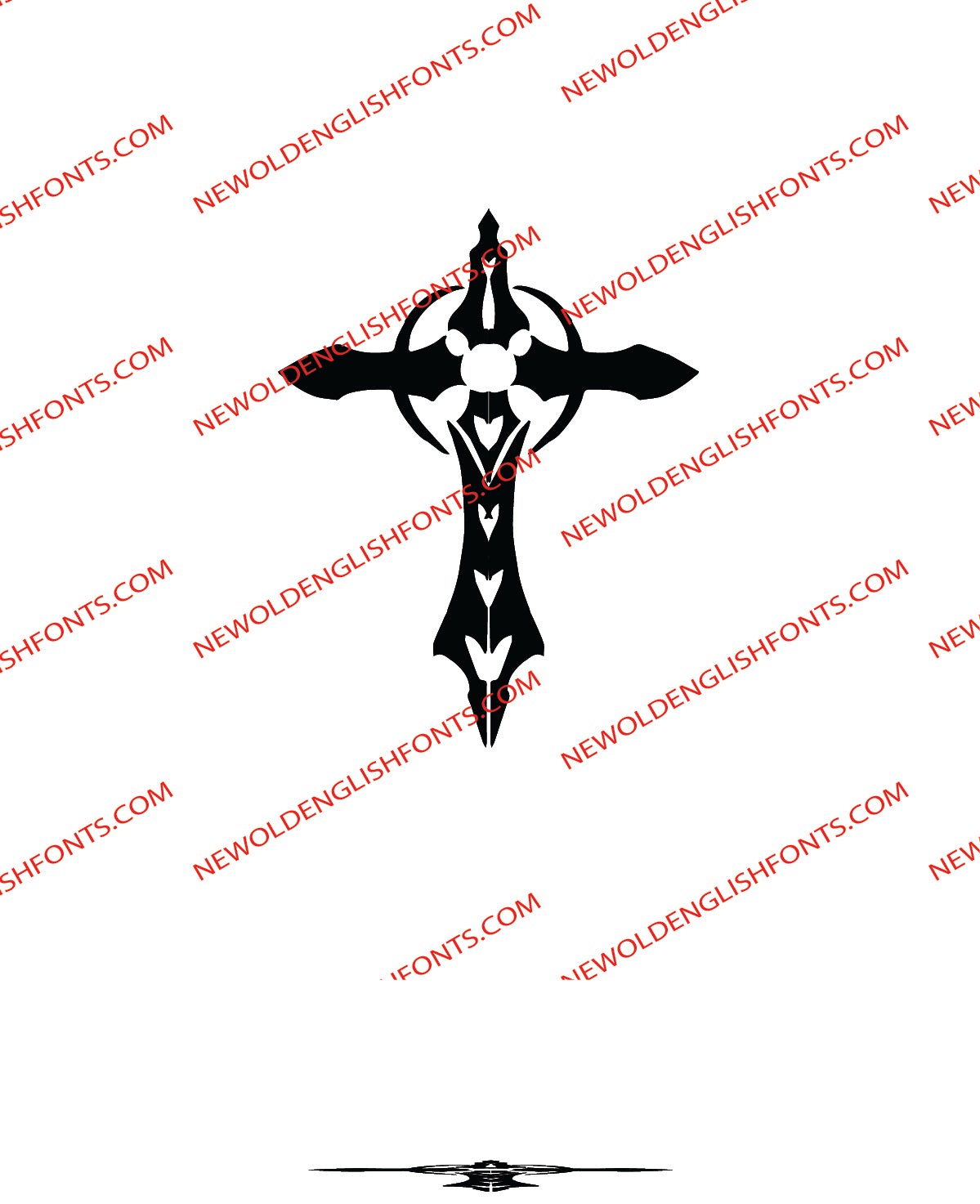
CROSS DOME
It has historical inspiration from European crosses and ornamental church motifs, often used in heraldry, manuscript decoration, or symbolic art.